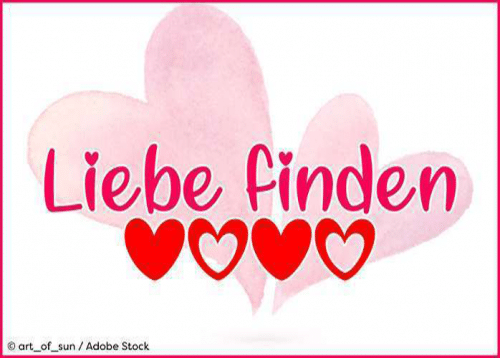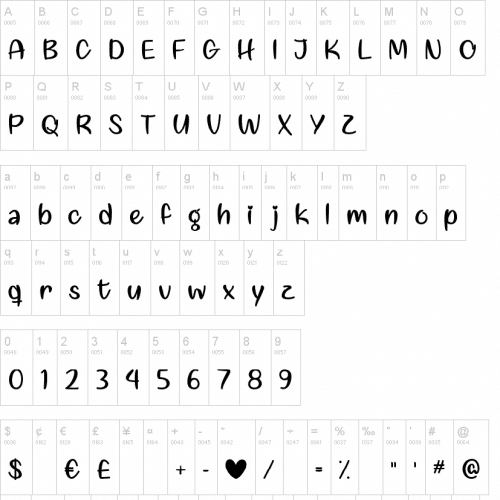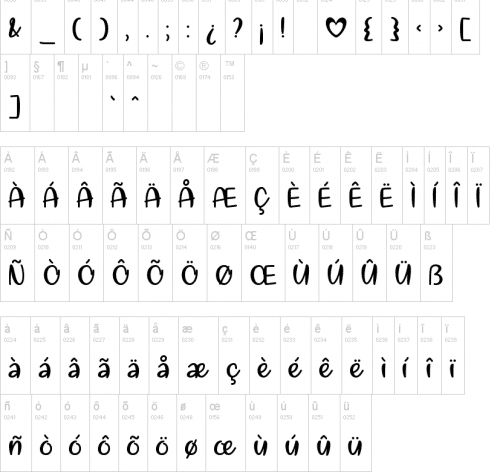
Liebe Finden Font is high quality Valentine font, designed by Misti’s Fonts. You can use this font for personal purpose.
Special Symbols
Type * (asterisk) for the solid heart
Type | (bar) for the first open heart